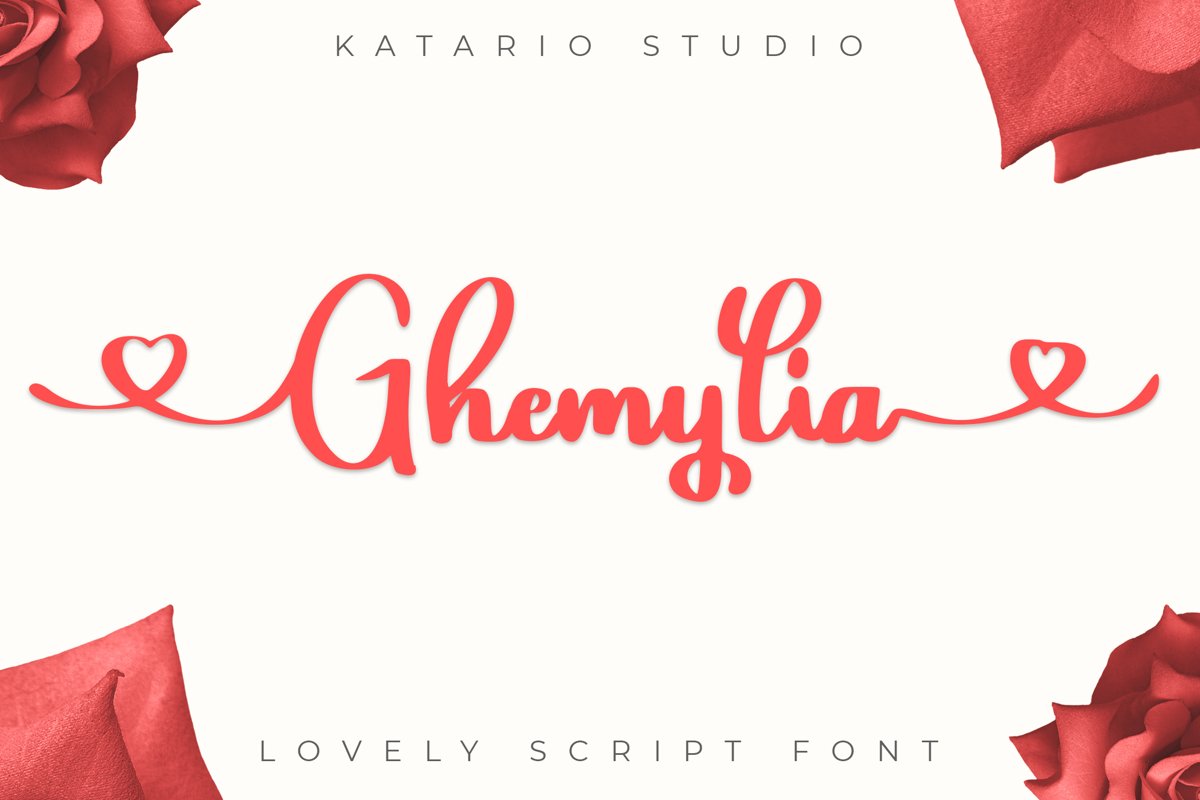
Ghemylia - Lovely Heart Font
Ghemylia
A lovely script font for lovely event. With a lot of alternate characters you can use for any project you have (wedding, family event, gathering event, valentine event).
Multilanguage support. A font with a lots of heart!